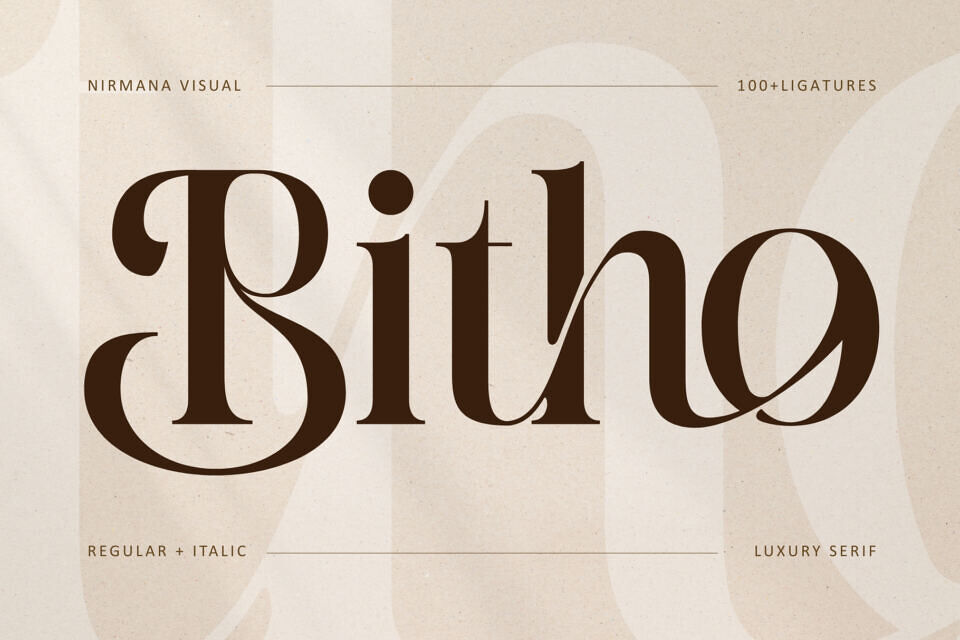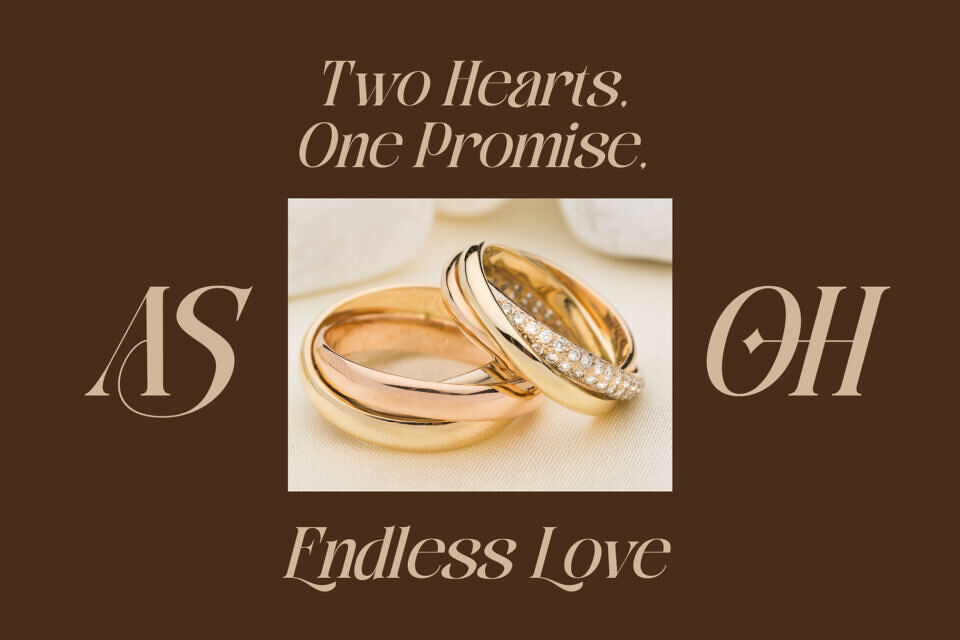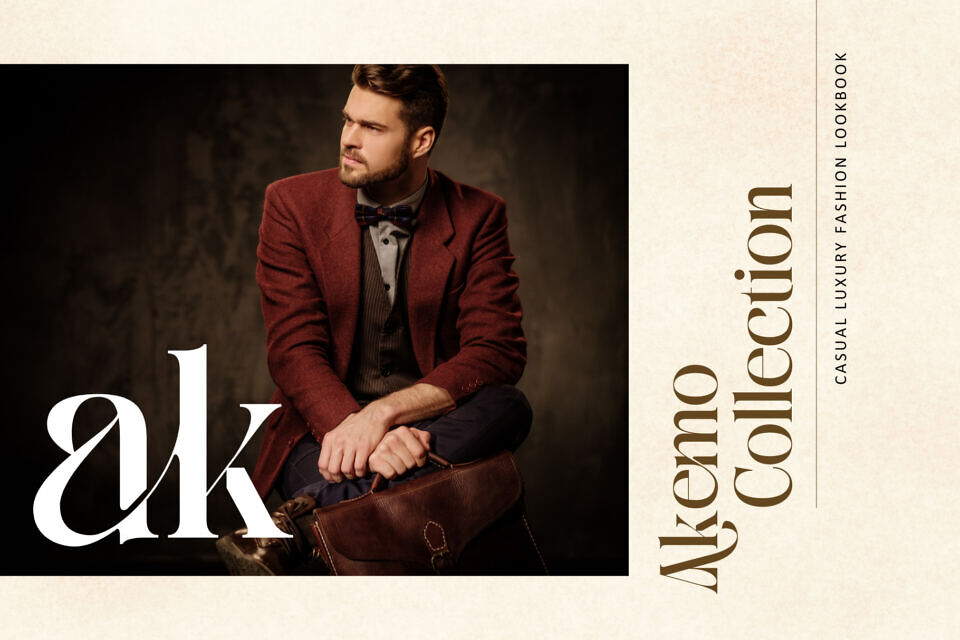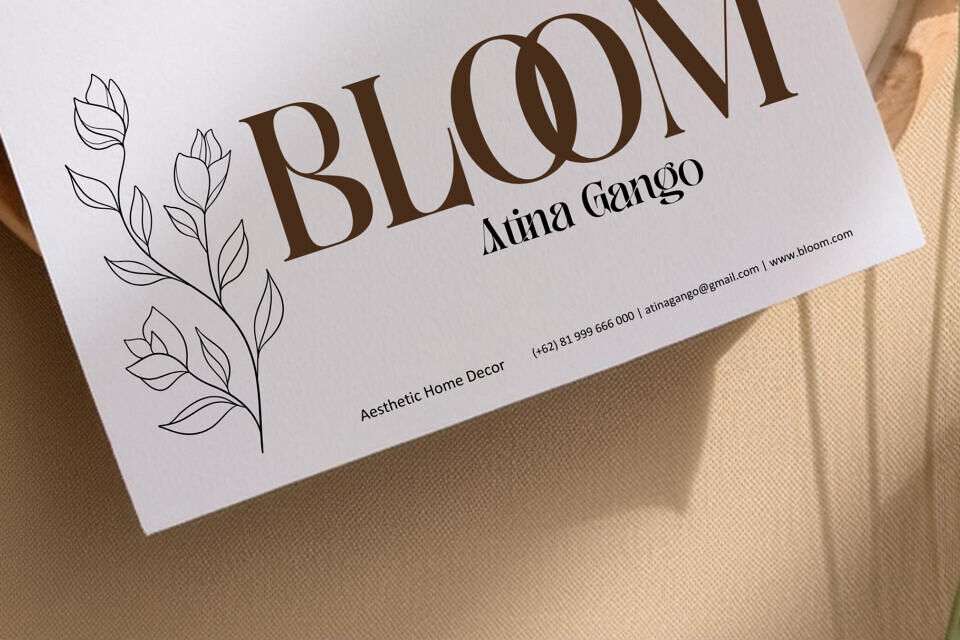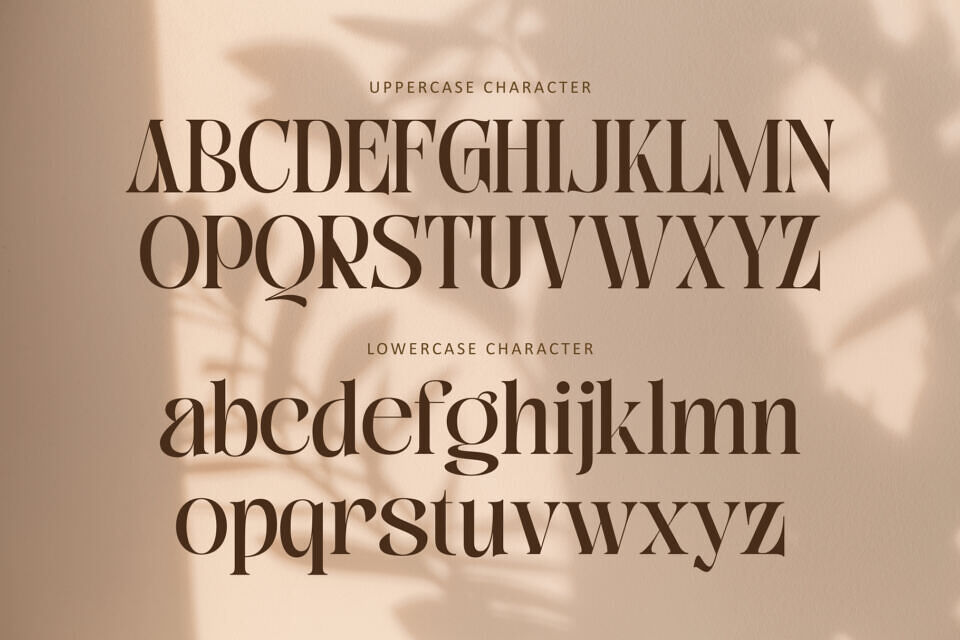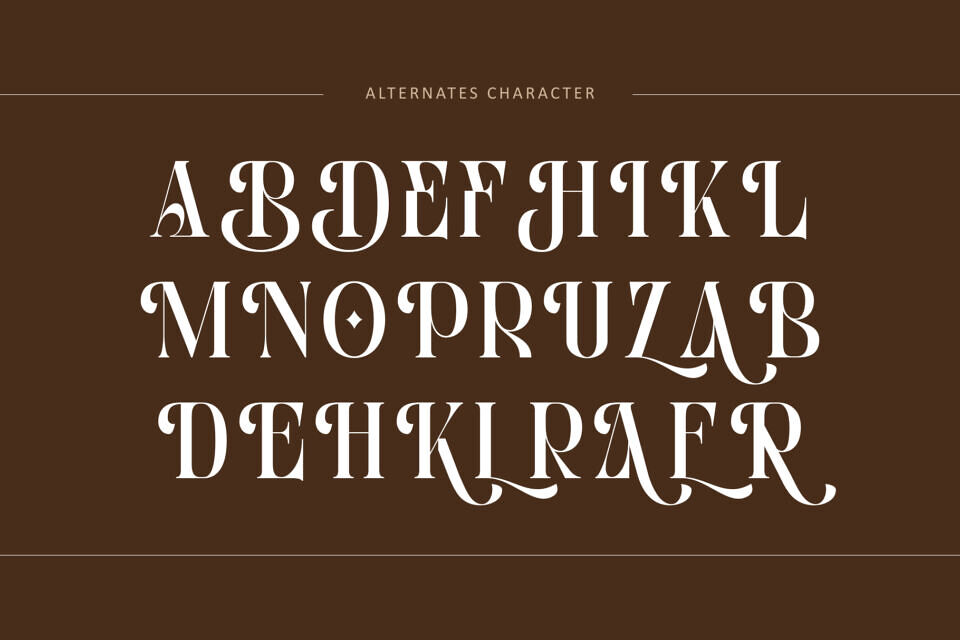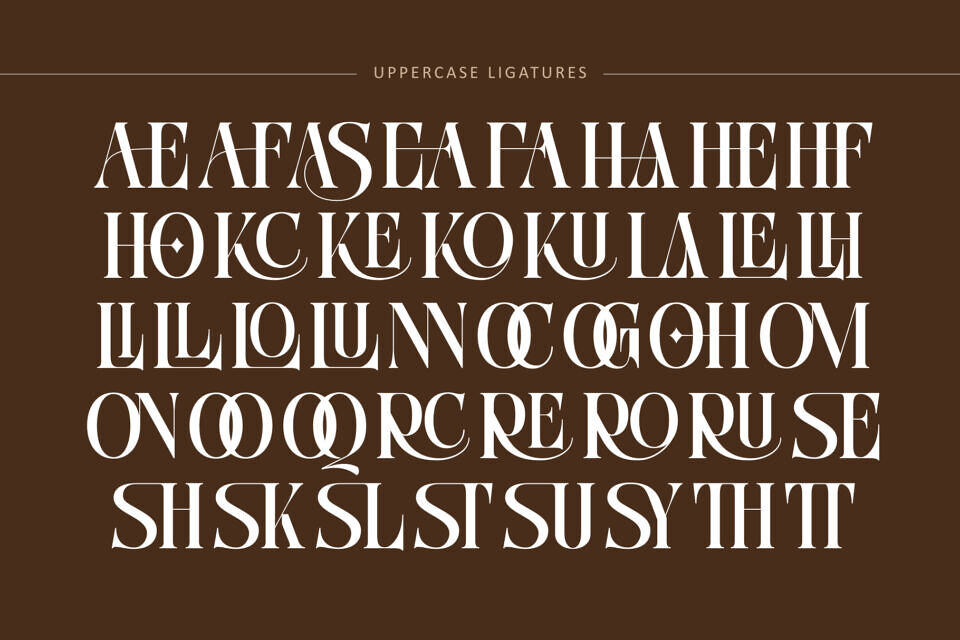
Bitho Luxury Font
Timeless typographic style made to elevate logos, marketing visuals, digital content, and stylish print projects.
Bitho Luxury offers beautiful typographic harmony for a diversity of design projects, including logos & branding, social media posts, advertisements & product designs.
Designed by: Nirmana Visual